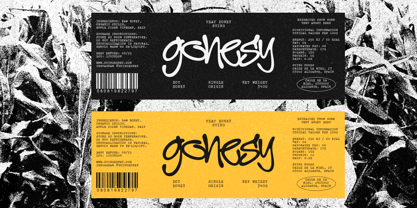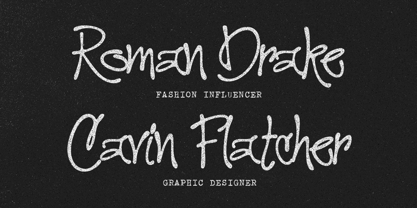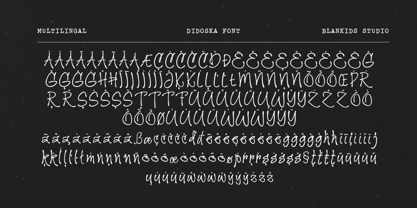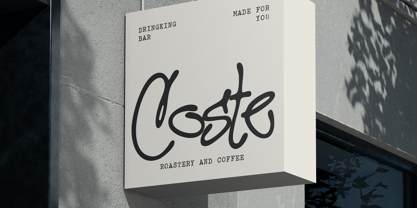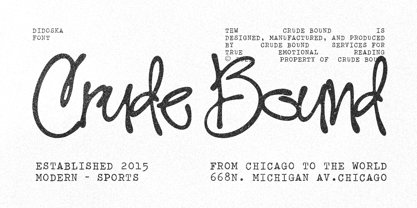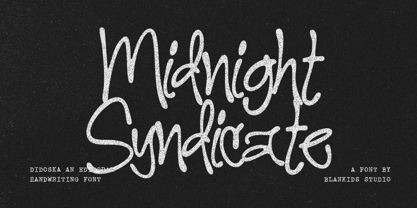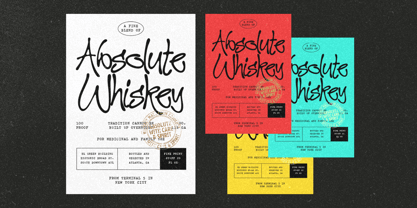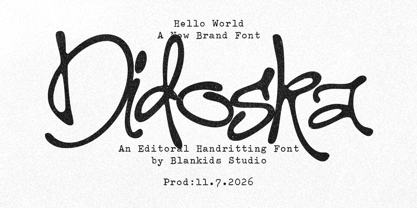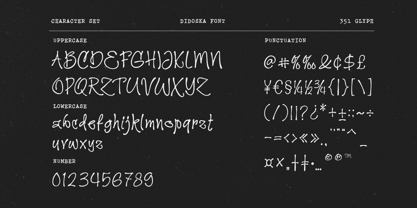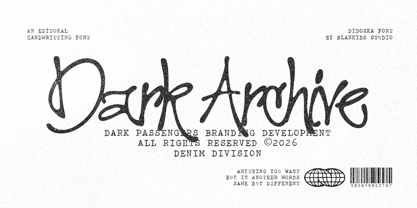
Didoska
by Blankids
The Didoska Font Family was designed by Bangkit Tri Setiadi and published by Blankids. Didoska contains 1 styles. More about this family
Didoska – Editorial Handwriting Font
Meet Didoska, an expressive editorial handwriting font that captures the beauty of authentic handwritten strokes. Designed with natural movement, imperfect curves, and confident lines, Didoska brings a sophisticated yet effortless personality to every design.
Inspired by fashion editorials, creative branding, and contemporary visual culture, Didoska blends elegance with a raw handcrafted feel. Every letter flows organically, creating a signature look that feels personal, artistic, and memorable.
Whether you're designing luxury branding, magazine headlines, logo designs, packaging, social media content, or stylish quotes, Didoska adds a modern handwritten touch that instantly stands out.
Designers: Bangkit Tri Setiadi
Foundry: Blankids